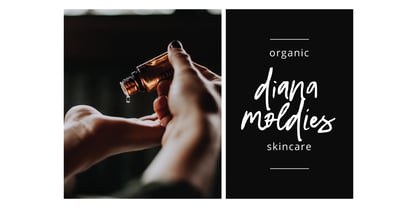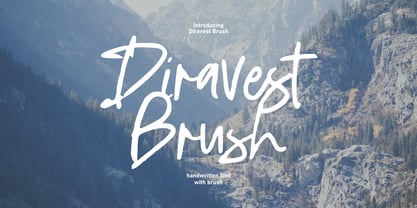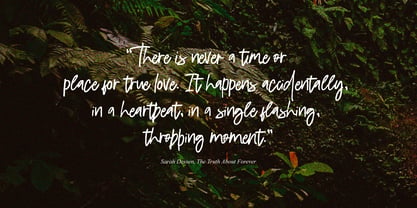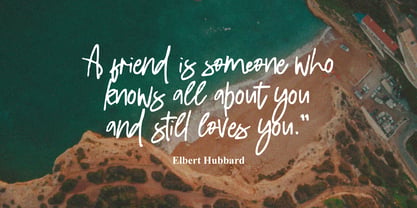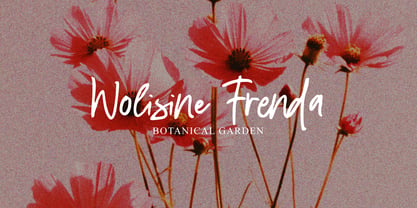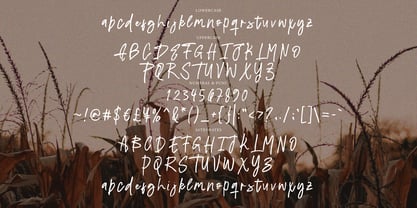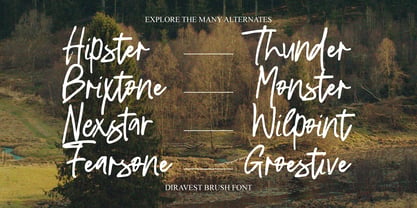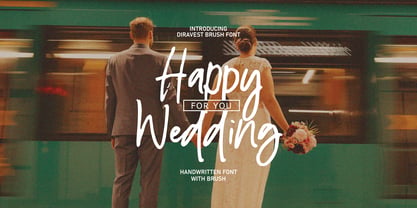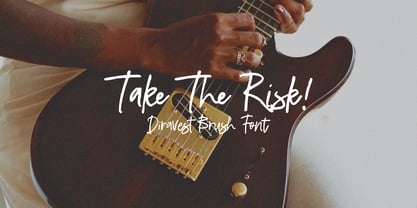
Diravest Signature Brush
by Tebaltipis Studio
The Diravest Signature Brush Font Family was designed by Dzulka Elfira and published by Tebaltipis Studio. Diravest Signature Brush contains 1 styles. More about this family
Diravest Signature Brush with a handmade Signature style, decorative characters and a dancing baseline! So beautiful on invitation like greeting cards, branding materials, business cards, quotes, posters, and more!!
Designers: Dzulka Elfira
Foundry: Tebaltipis Studio